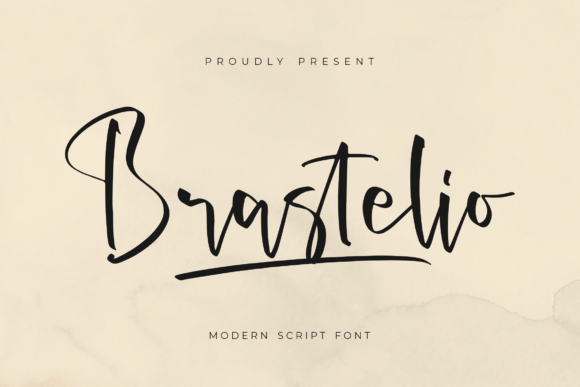
Enter the world of Brastelio Font, a captivating script font that dances with elegance and charm, ready to transform your creative visions into reality. A brainchild of Letterfabric, this modern script font possesses an undeniable allure that adds a touch of sophistication to any project it graces.
Unleash the limitless potential of Brastelio, a font tailored to ignite your imagination and bring your creative aspirations to life. Whether you're designing logos, branding projects, or crafting homeware designs, Brastelio's versatility knows no bounds. Picture your designs adorned with this exquisite font, exuding a timeless appeal that captures hearts and minds.
For those seeking a font that seamlessly blends beauty and functionality, Brastelio emerges as the perfect choice. Its meticulously crafted characters dance across packaging, mugs, and posters with an effortless grace that captivates the eye. Imagine your products adorned with Brastelio's alluring strokes, creating a sensory experience that draws customers in.
Step into the world of Brastelio and discover a font that complements your creative journey, allowing you to express your ideas with flair and artistry. Whether you're creating shopping bags, t-shirts, or book covers, Brastelio's charm knows no limits. Its ability to transform ordinary designs into extraordinary creations will leave a lasting impression on your audience.
With Brastelio, your designs transcend the boundaries of the ordinary, taking on a life of their own. Name cards, invitation cards, and greeting cards adorned with this font exude an air of elegance that reflects your discerning taste. Prepare to be mesmerized as Brastelio elevates your designs to new heights, turning each creation into a masterpiece.
For those drawn to the art of photography, Brastelio serves as the perfect muse, adding a touch of magic to your visual narratives. Watermarks infused with Brastelio's graceful curves lend a timeless charm to your images, captivating viewers with their enchanting allure.
Brastelio's versatility extends to special events, where it shines as a beacon of creativity. Whether gracing invitations or adorning décor, this font sets the stage for unforgettable moments, leaving a lasting impression on your guests.
Dive into the realm of Brastelio and embrace a font that embodies the essence of beauty, sophistication, and endless creative possibilities. Let your imagination soar as you witness the transformation of your designs into captivating works of art. Experience the Brastelio difference today and unlock a world of endless creative possibilities.